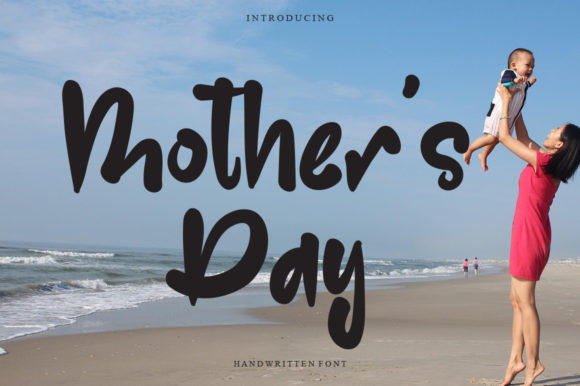
Prepare yourself to be swept away by Mother's Day Font, a captivating script font that dances across the page with its bold strokes and playful curves. Crafted by the renowned A2-lucky, this font is an irresistible choice for those seeking to infuse their designs with a dash of adventure and authenticity.
With its expressive lines and dynamic personality, Mother's Day Font beckons you to embark on a creative journey where imagination reigns supreme. Let your designs flourish with the font's innate charm, effortlessly evoking a sense of adventure and authenticity.
This script font is a visual masterpiece, meticulously designed to capture the essence of handwritten elegance. Its bold strokes command attention, while its playful curves inject a touch of whimsy, creating a harmonious balance that elevates your designs to new heights.
Step into a world of endless possibilities with Mother's Day Font. Its versatility knows no bounds, seamlessly adapting to a myriad of design projects. Craft eye-catching logos that exude boldness and authenticity, design social media posts that radiate a sense of adventure, or create stunning invitations that capture the spirit of celebration.
Let Mother's Day Font be your creative companion, guiding you towards design excellence. Its captivating charm will transform your projects into captivating expressions of art, leaving an unforgettable impression on your audience. Embrace the adventurous spirit of this font and unlock a world of creative possibilities.